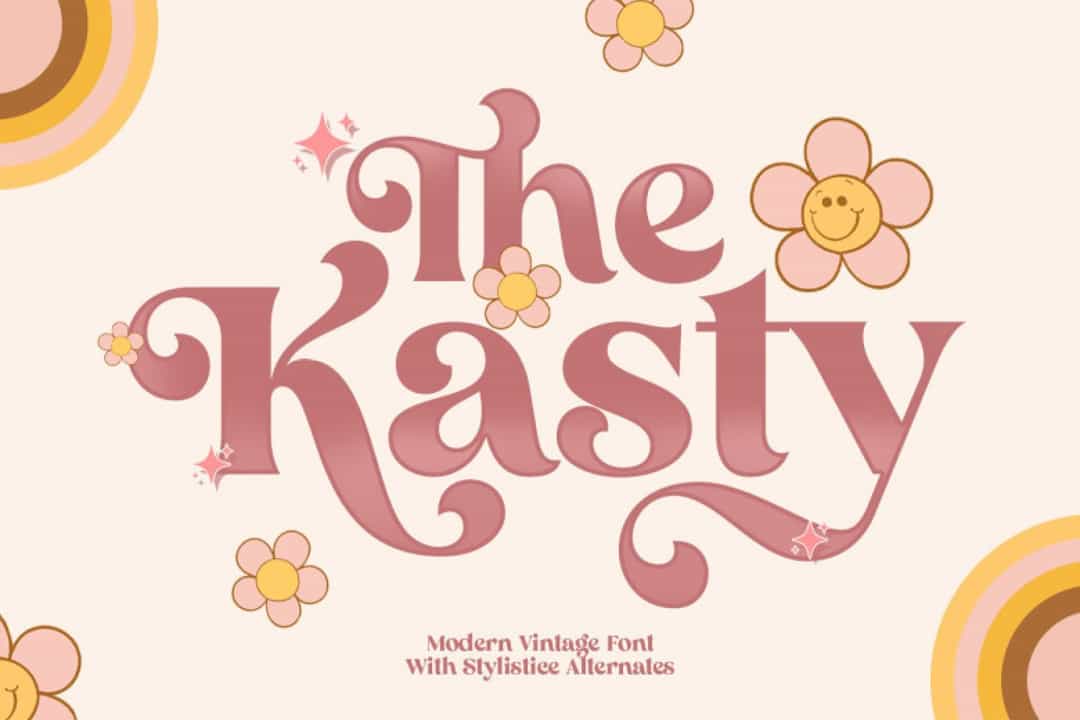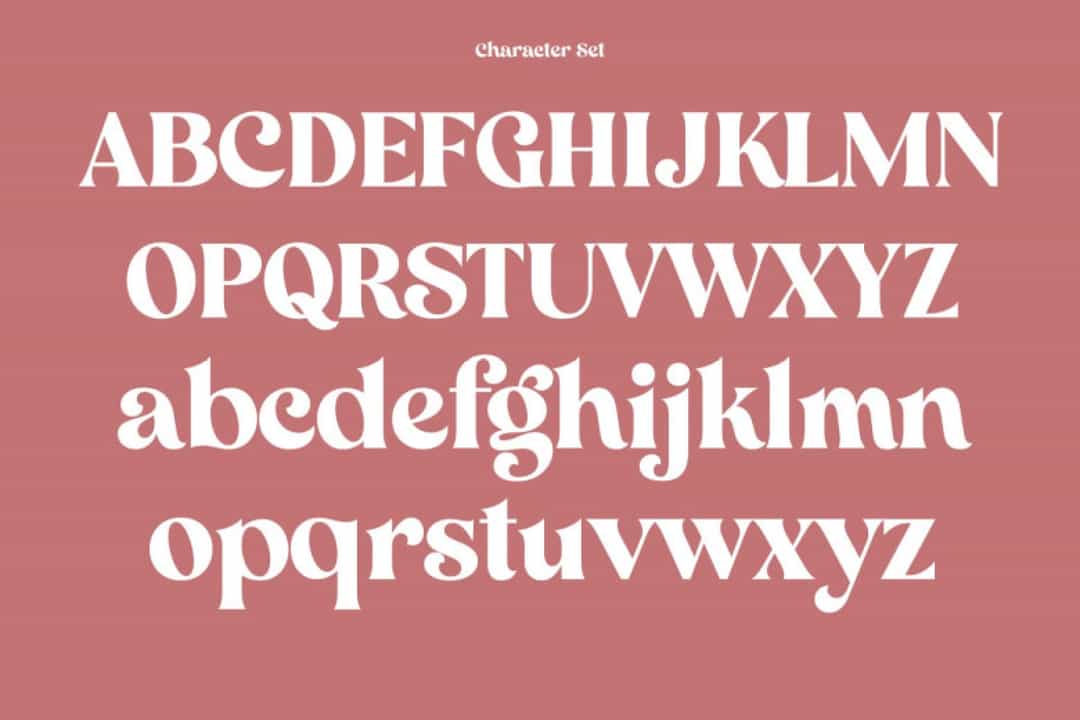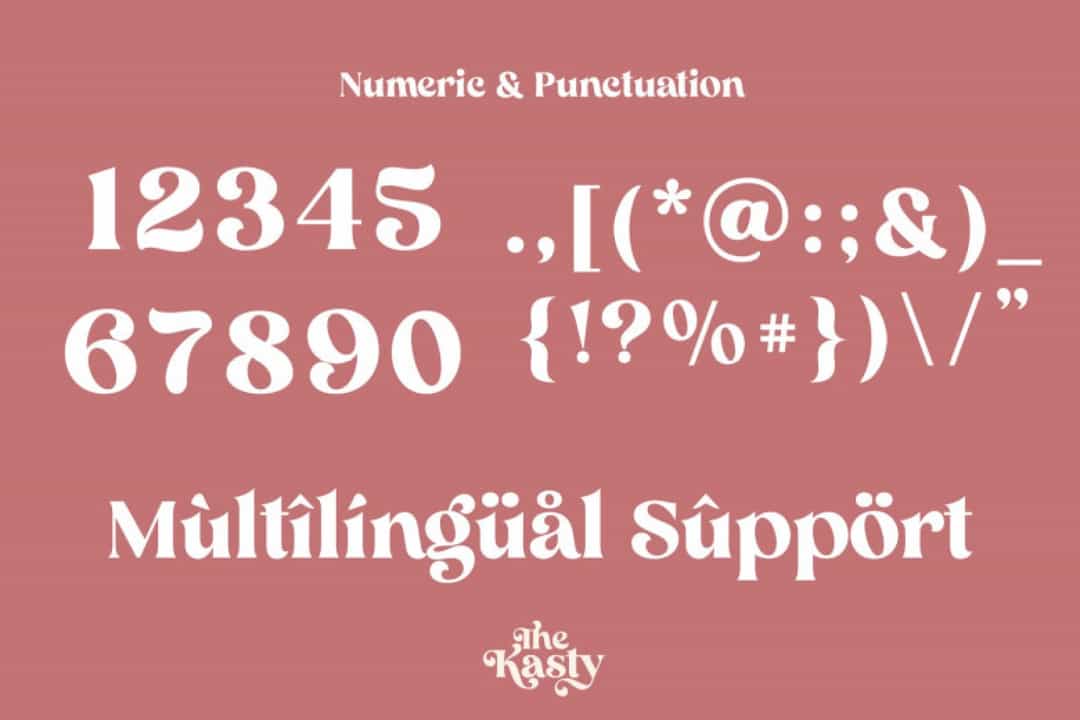
The Kasty is an amazing contemporary vintage serif typeface designed with precision and accuracy, featuring striking curves. Boasting an array of characters and ligatures, its versatility makes your work truly original – perfect for logo design, greeting card branding and packaging of titles; use our fonts immediately to enhance your work and impress others with it.